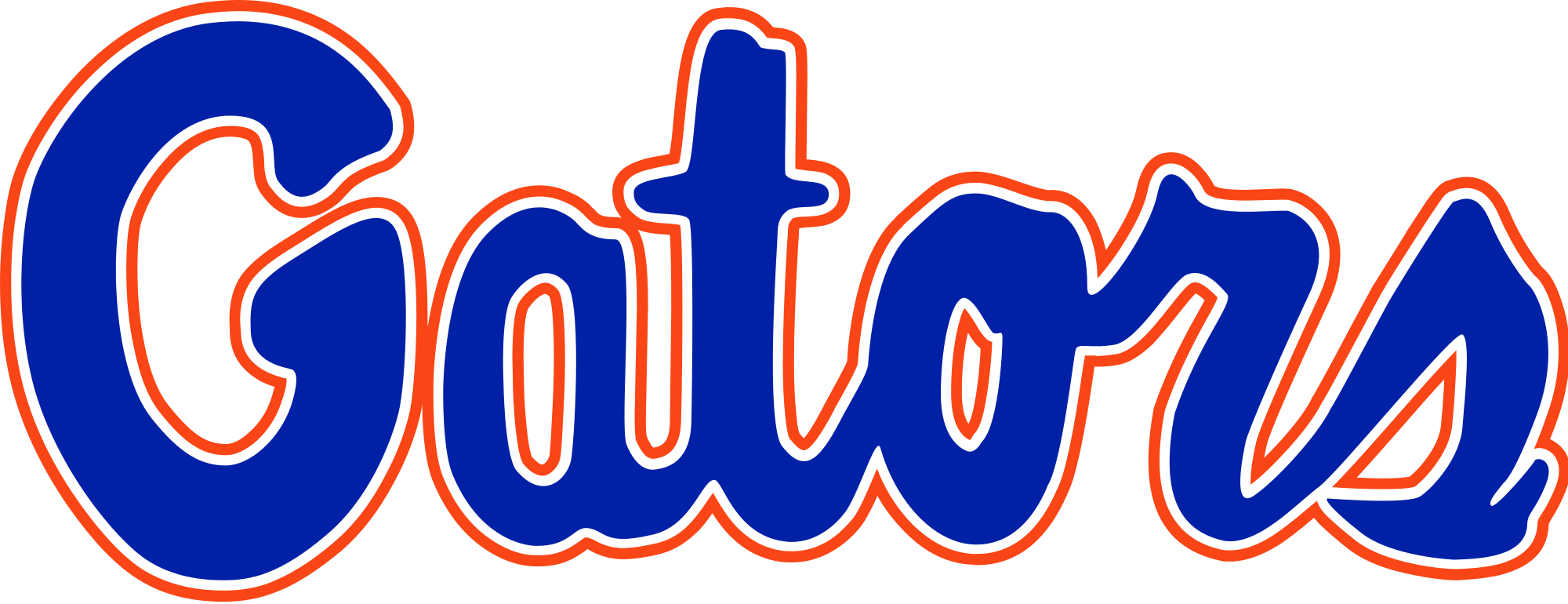
Florida Gators Font Logo
In addition to the primary one, depicting a crocodile’s head, there is also the block “f” emblem and the wordmark. Florida gators font free download. Florida gators logo black and white.